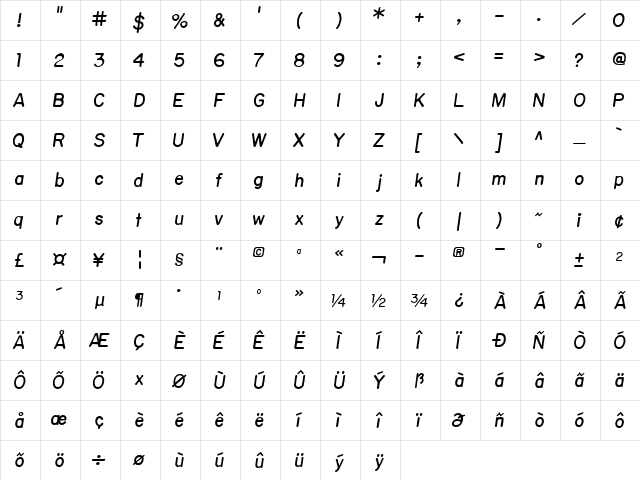
Sublime Medium Italic
| Foundry | CONIGLIO USA |
Design Context for Sublime Typeface
Sublime takes a measured approach to typography — its balanced proportions and neutral character make it a reliable workhorse for both digital and print work. Its italic angle brings a sense of urgency and motion to the letterforms.
Pro Tip: Try Sublime for annotation and caption copy alongside an upright companion — the contrast in angle creates a dynamic but ordered typographic system.